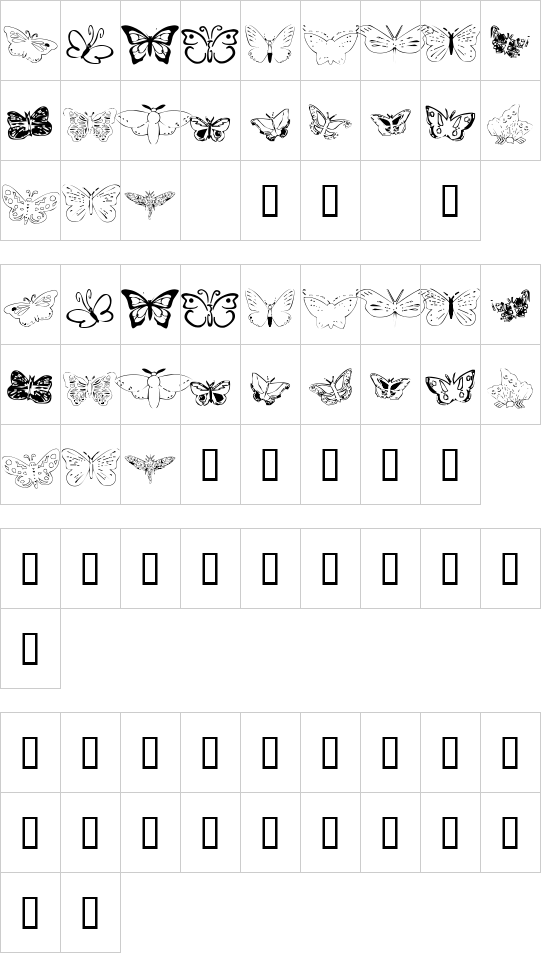
ButterflyHeaven is an animal dingbat font packed with ornate butterfly glyphs ready to drop into designs. Each key holds a detailed pair of wings rather than a letter, giving you decorative nature artwork at a keystroke.